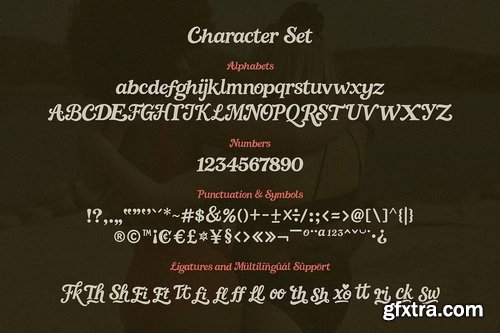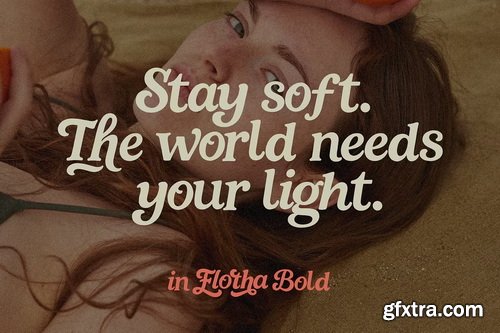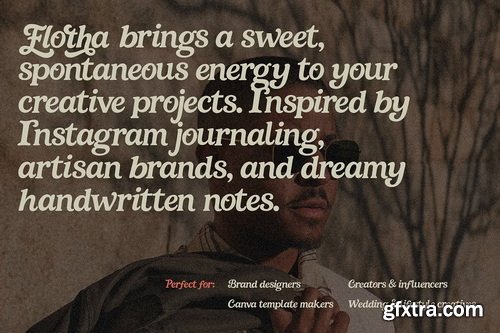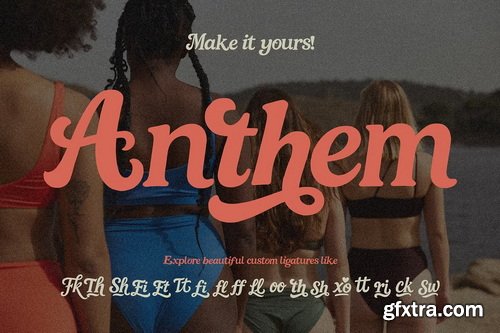
Flotha is a bold and bouncy display font with playful energy and aesthetic charm. Carefully hand-drawn with a brush pen, each letter is designed to flow with personality and style — perfect for creative branding, Instagram templates, packaging, wedding stationery, and more. Flotha includes a full character set with uppercase, lowercase, numbers, punctuation, and multilingual support. What makes Flotha extra special is the set of unique ligatures and alternate characters with long swashes that add flair to your designs.